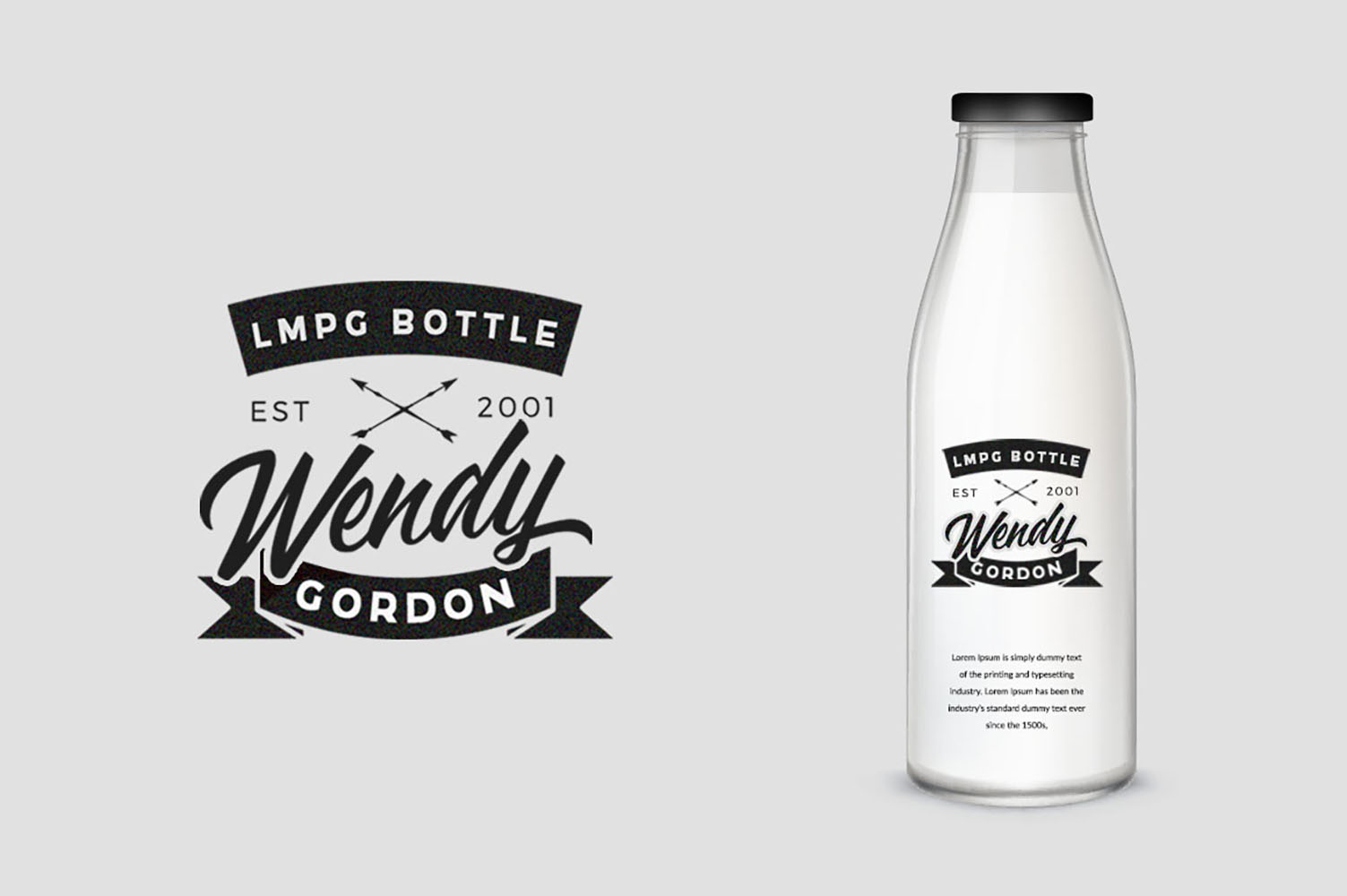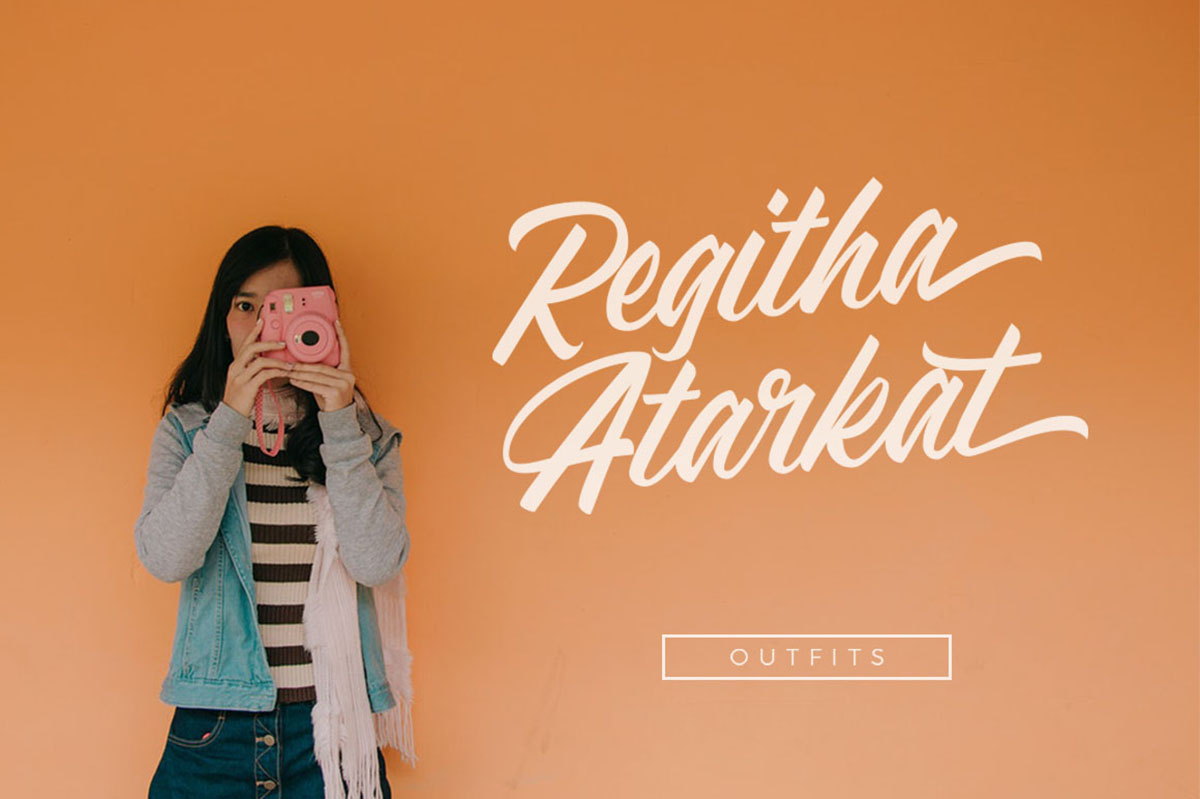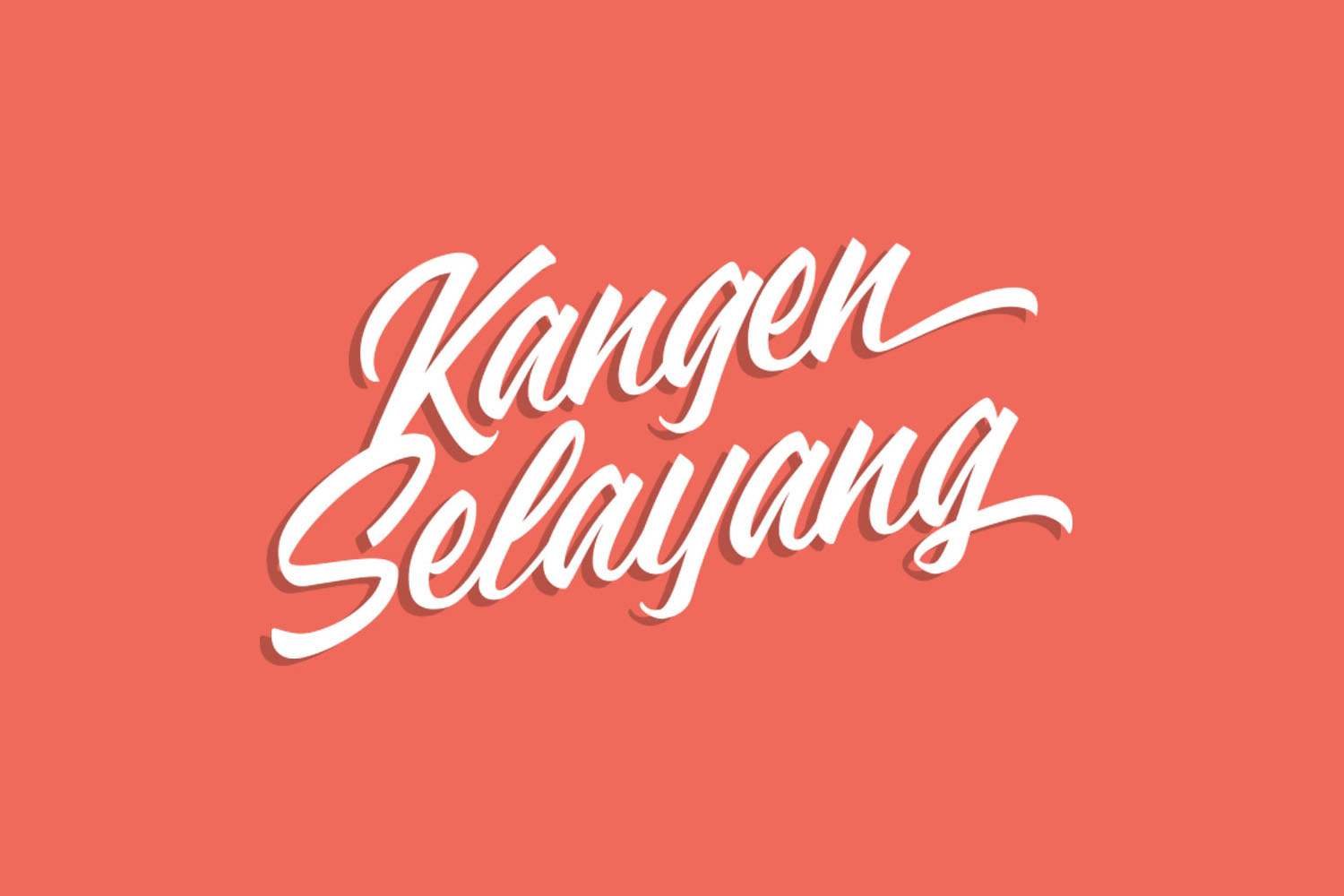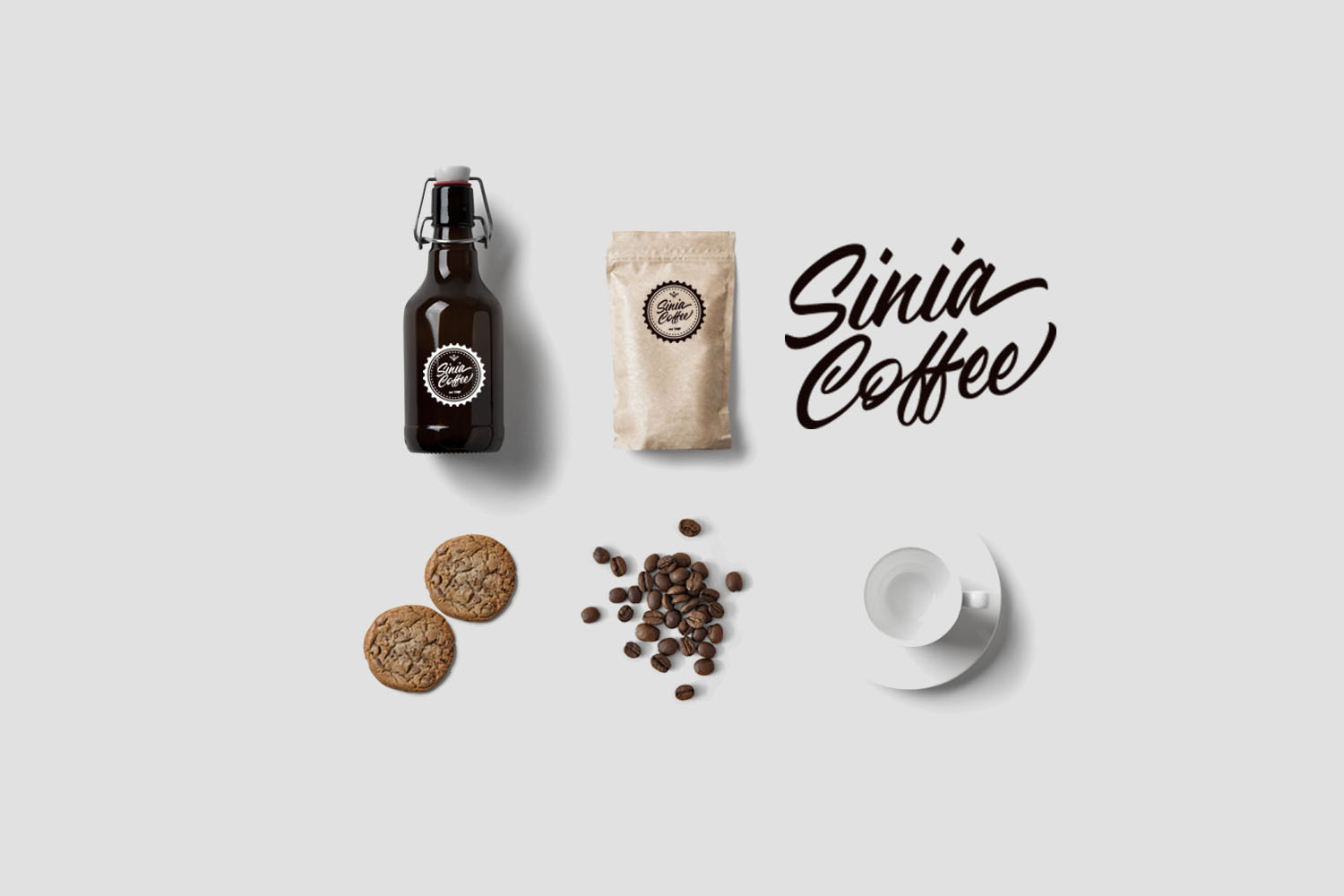
Adelaide Free Font Demo
Adelaide Free Font Demo is a script typeface with a sense calligraphy style clean. ideal for logos, poster, branding, quotes, product, merchandise, name tag dll. It contains a full set of lower & uppercase letters, alternative characters, a large range of punctuation, numerals, and multilingual support. This free typeface was designed by talented Haris Purnama. If you like it don’t forget to check out the full version.